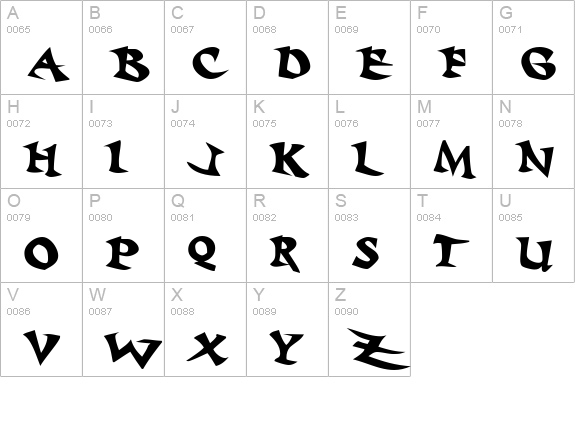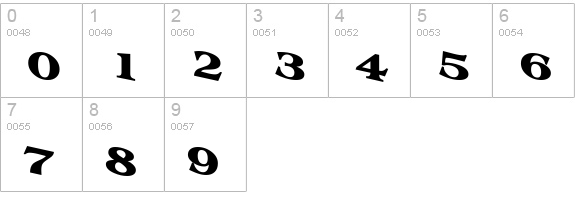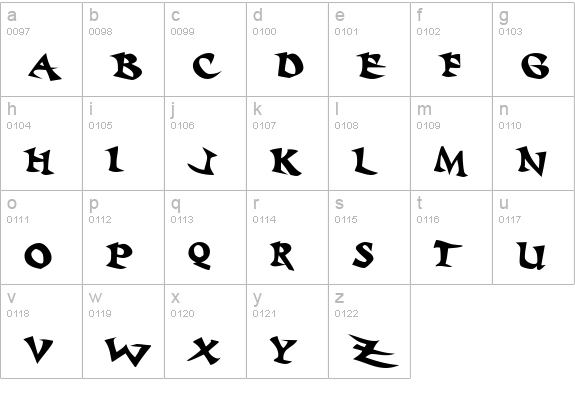
Baratz Bold Font Details
Baratz Bold is a strong, high-contrast variant in the Baratz typeface family \xE2\x80\x94 well suited to headlines, attention-grabbing titles, and strong calls-to-action.
Baratz Bold font is a modern and versatile typeface that exudes elegance and sophistication. Its bold and robust design makes it perfect for creating eye-catching headlines, titles, and logos. The sharp, clean lines of Baratz Bold give it a contemporary and professional look that is sure to make your designs stand out. Best of all, Baratz Bold is available for free download at FontsMarket.com. This means you can easily access and use this stunning font in your projects without any cost. Whether you're working on a branding project, poster design, or website layout, Baratz Bold is a fantastic choice that will elevate your work to the next level. Download Baratz Bold today and add a touch of style and flair to your designs.